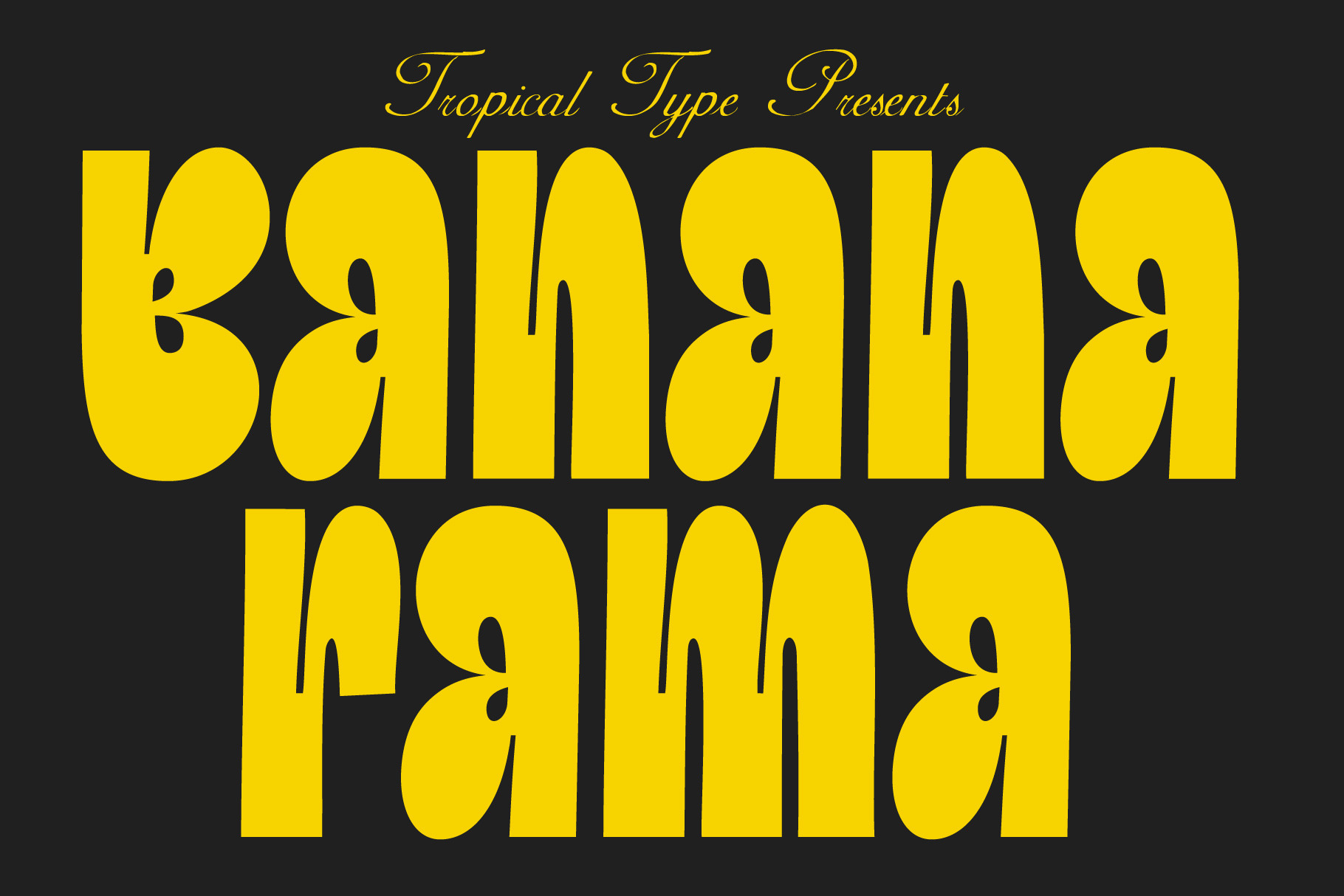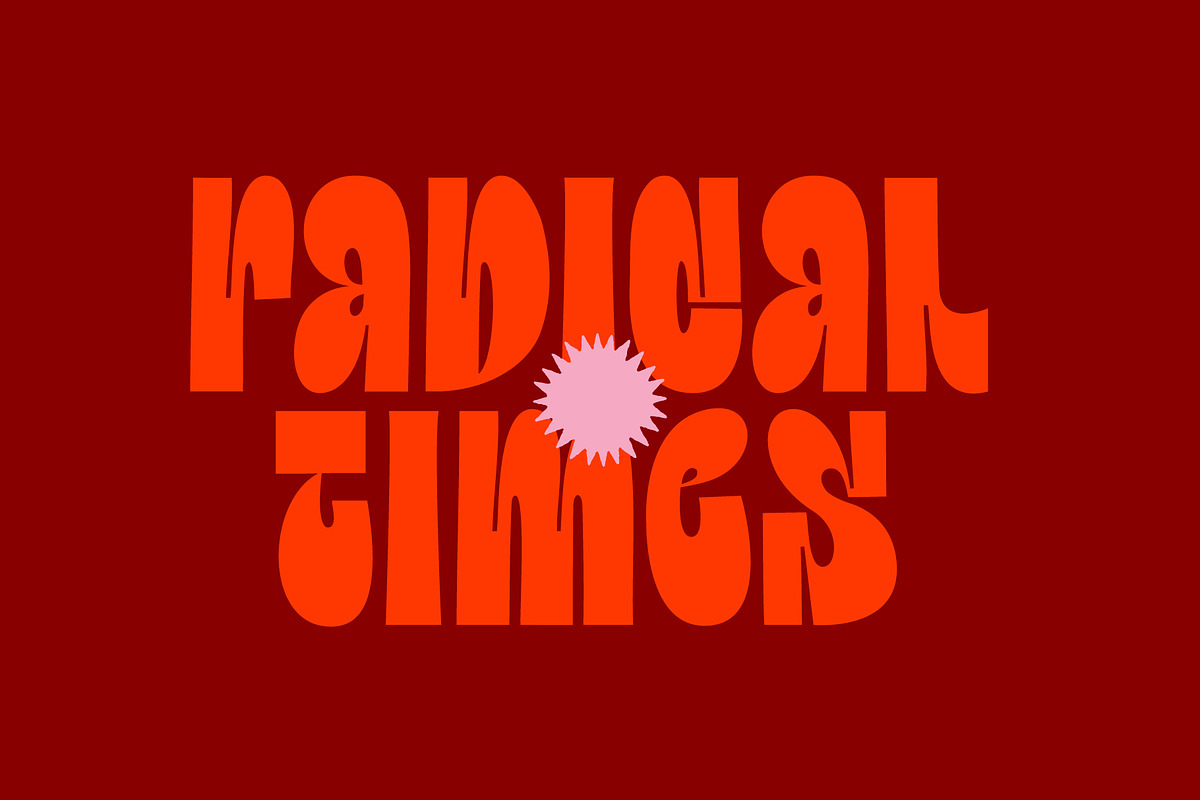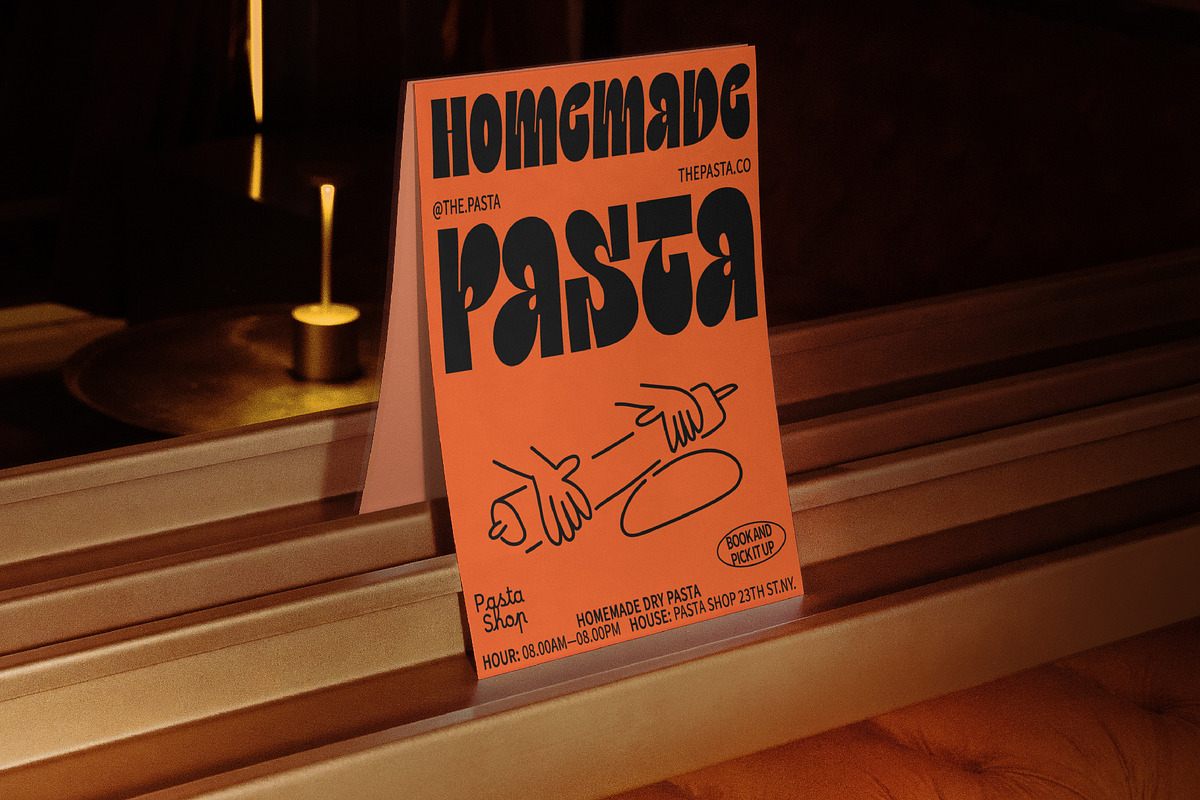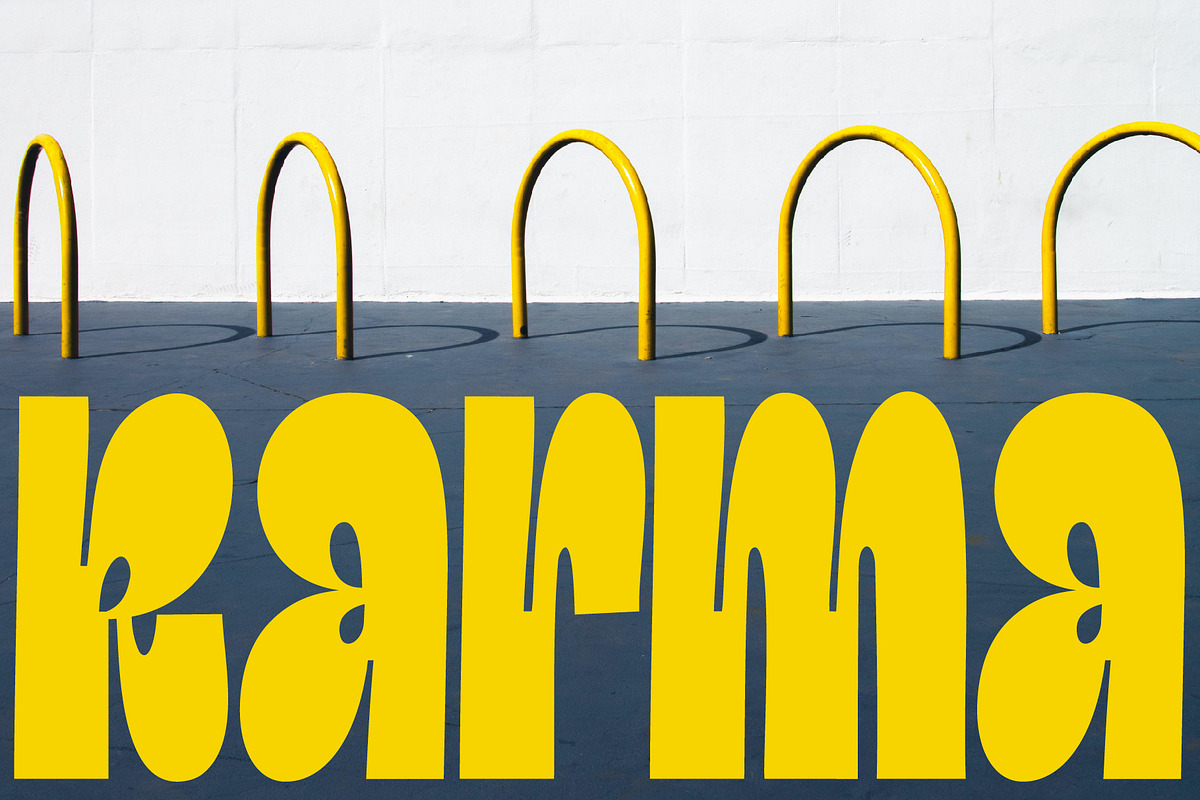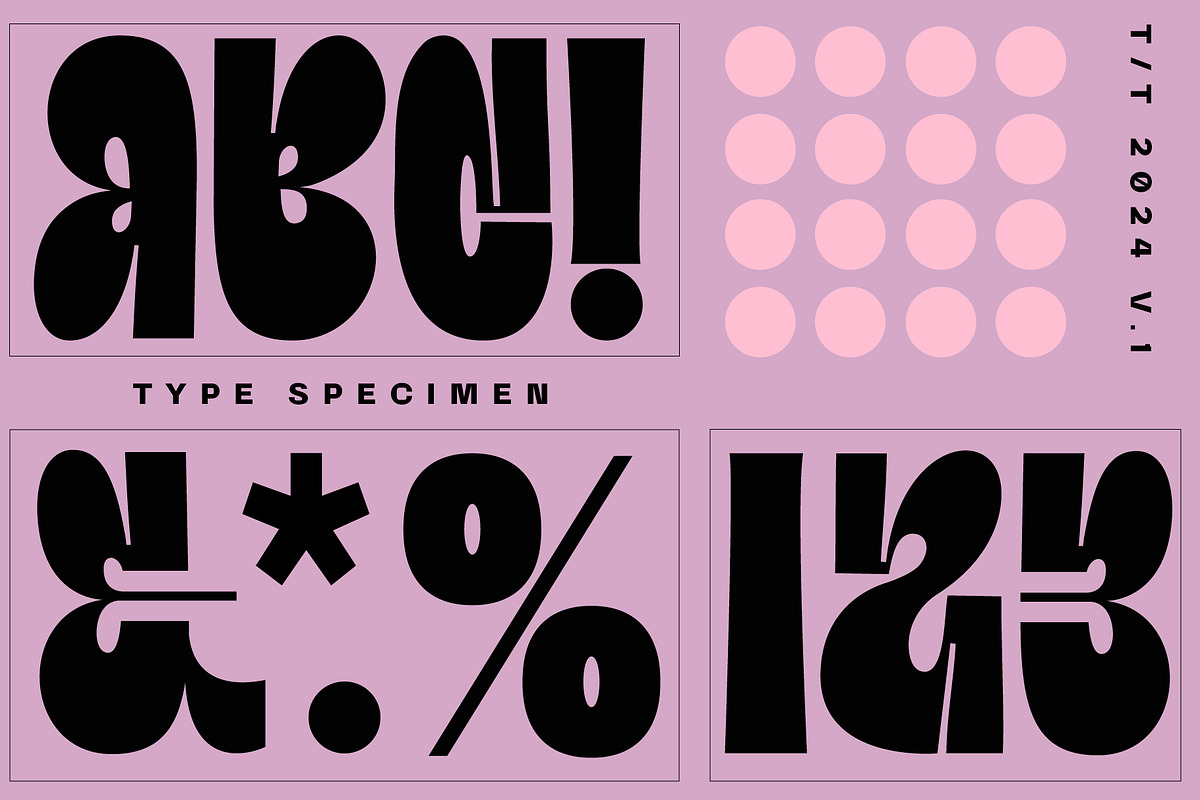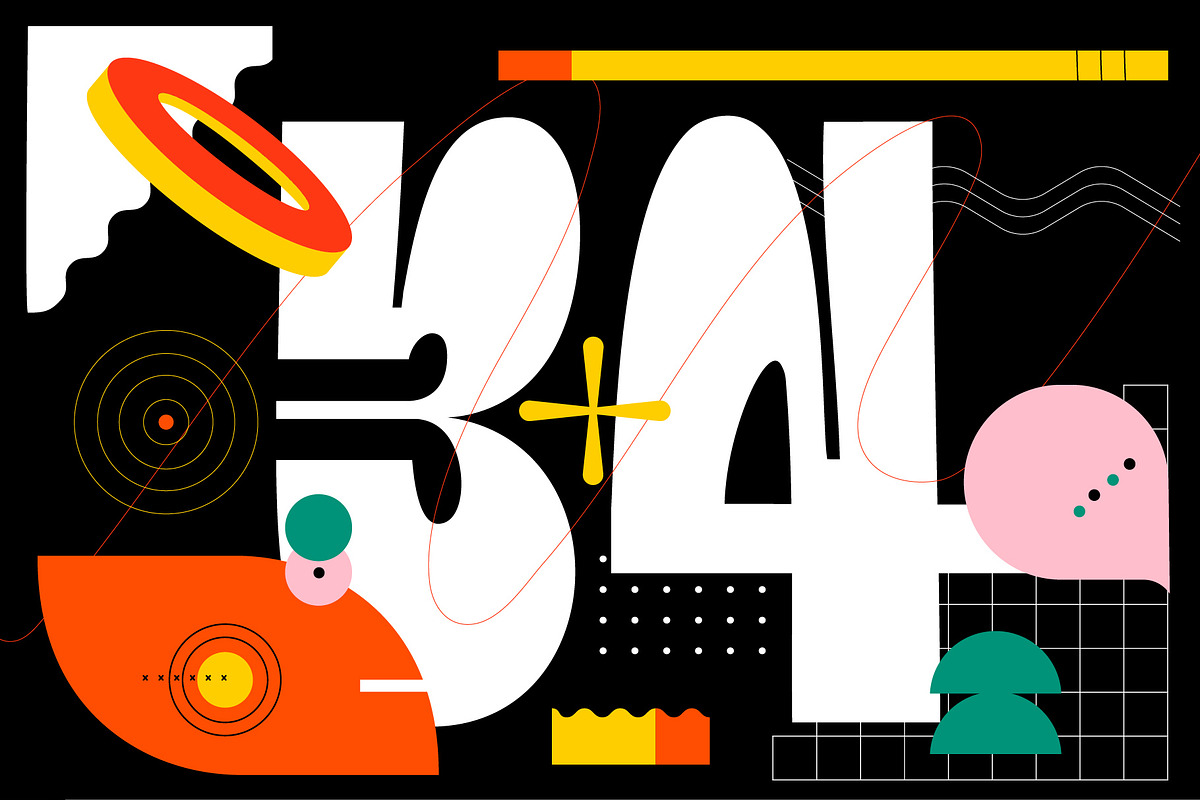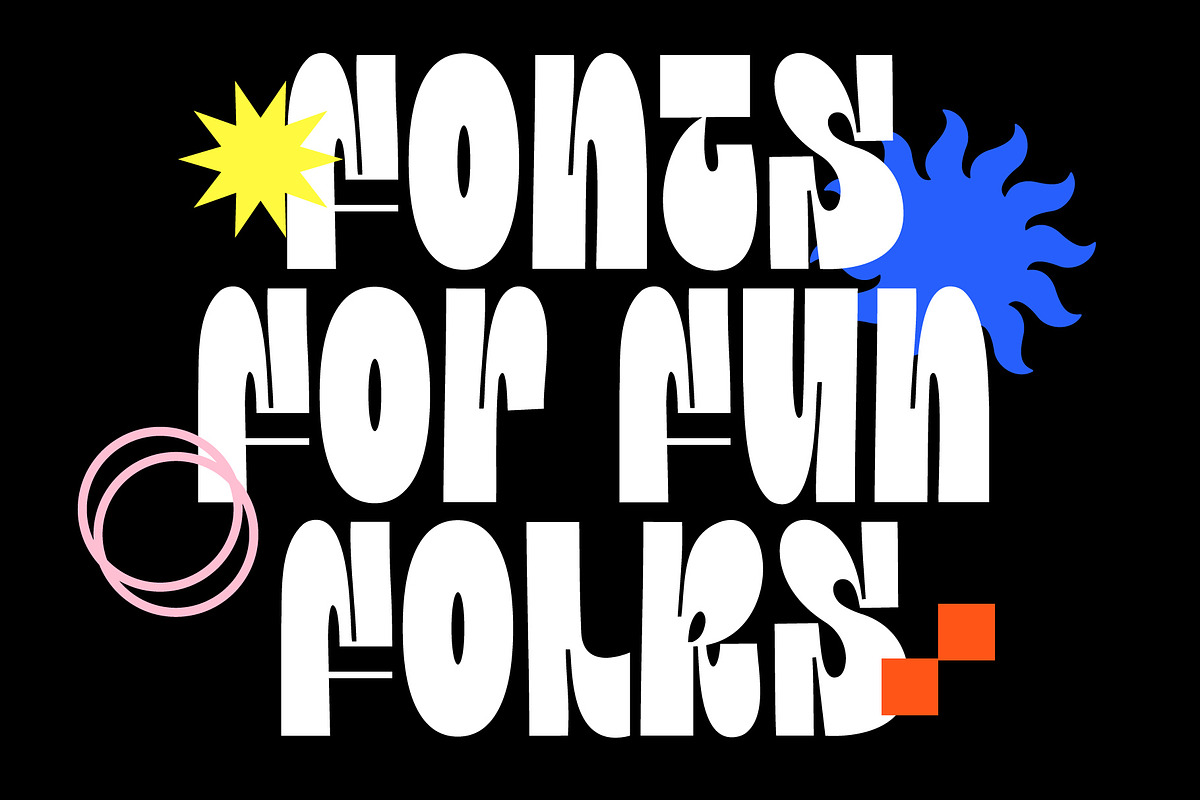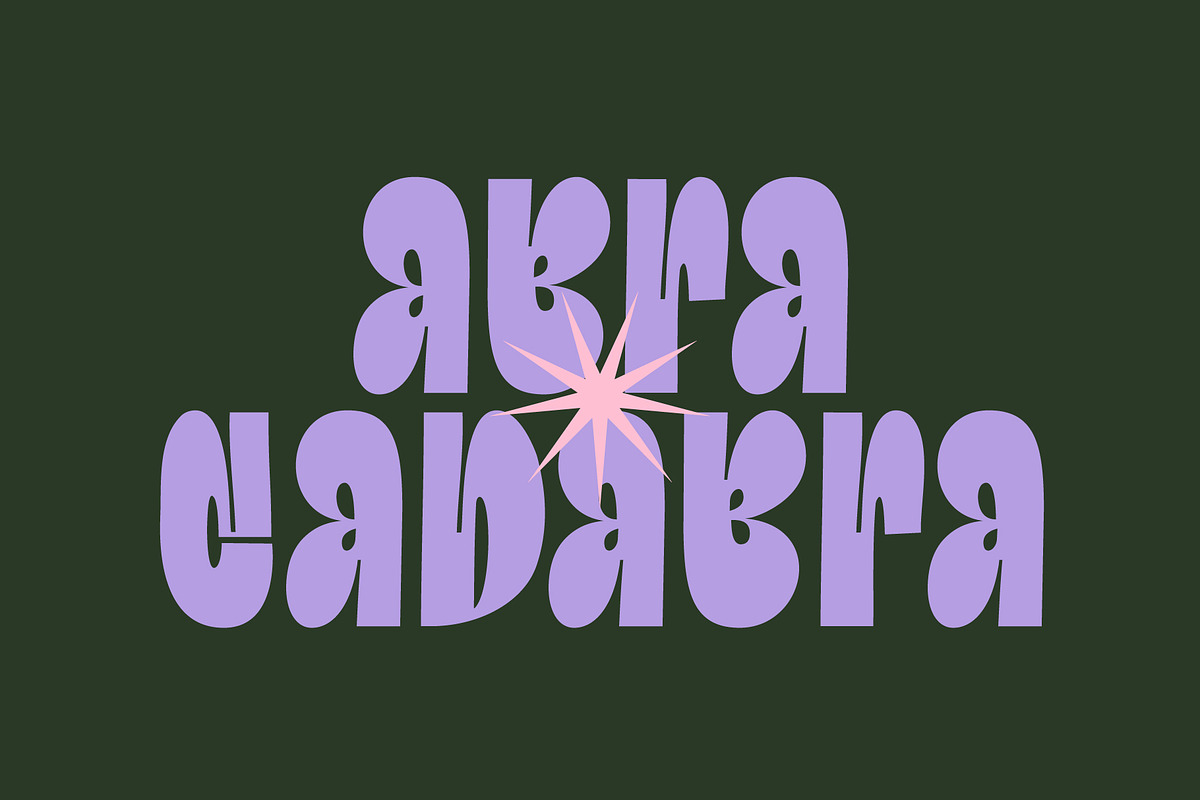
Bananarama Typeface
A silly font deserves a silly name and Bananarama is just that. A quirky, character filled, mixed caps typeface, with loads of personality. Bananarama is designed for fun and pairs nicely with vintage scripts and serifs.